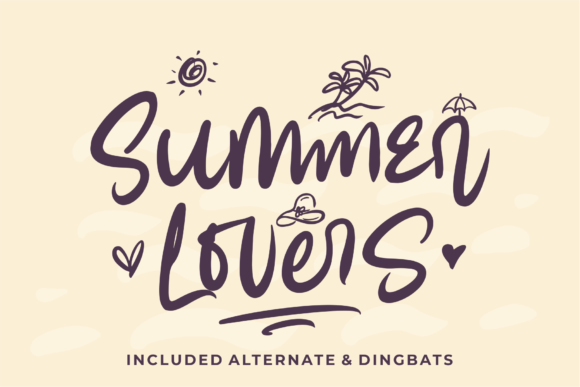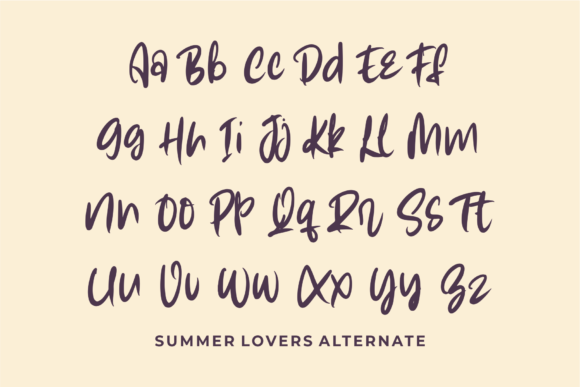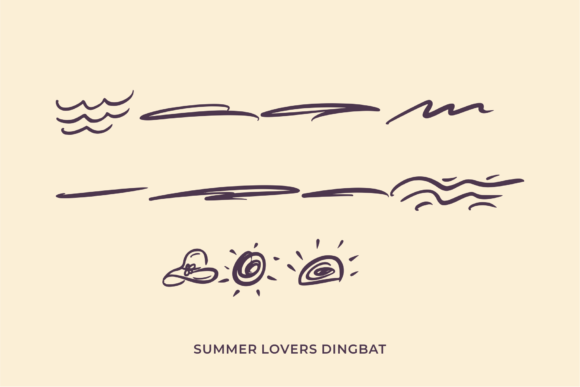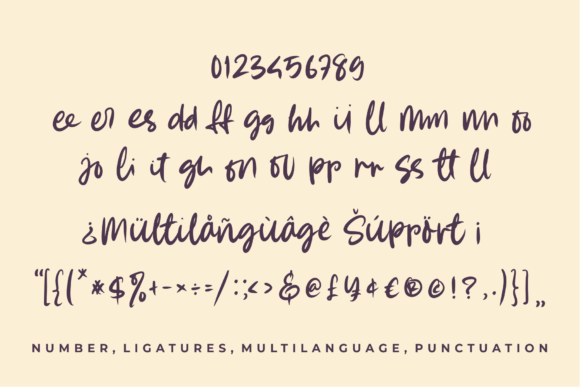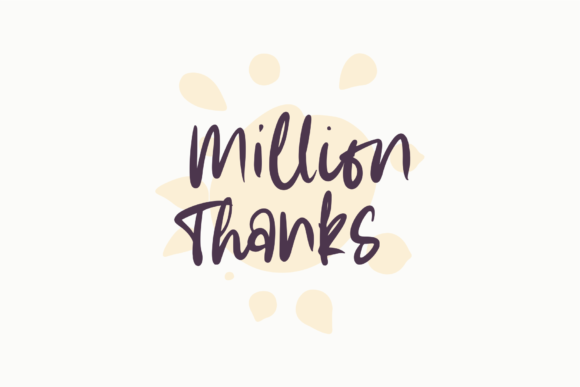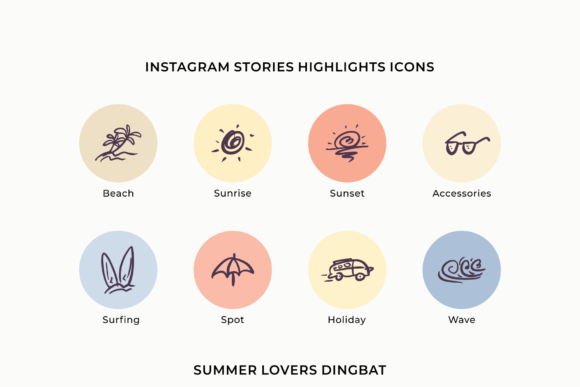
Summer Lovers Font
About Summer Lovers Font
Summer Lovers is a relaxed and simple handwritten font, with an incredibly friendly and summery feel. It is PUA encoded which means you can access all of the glyphs and swashes with ease! It features a varying baseline, smooth lines, gorgeous glyphs and stunning alternates.